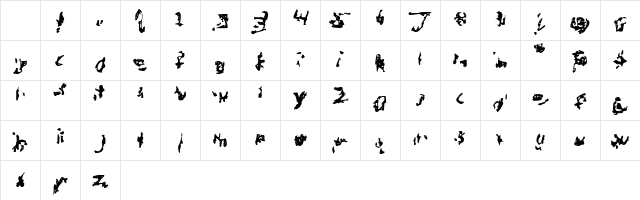
Menga is a composed and adaptable typeface that performs quietly and consistently across a wide range of design contexts.
Pro Tip: Use Menga in both headline and body roles to test its range before committing to a single application.